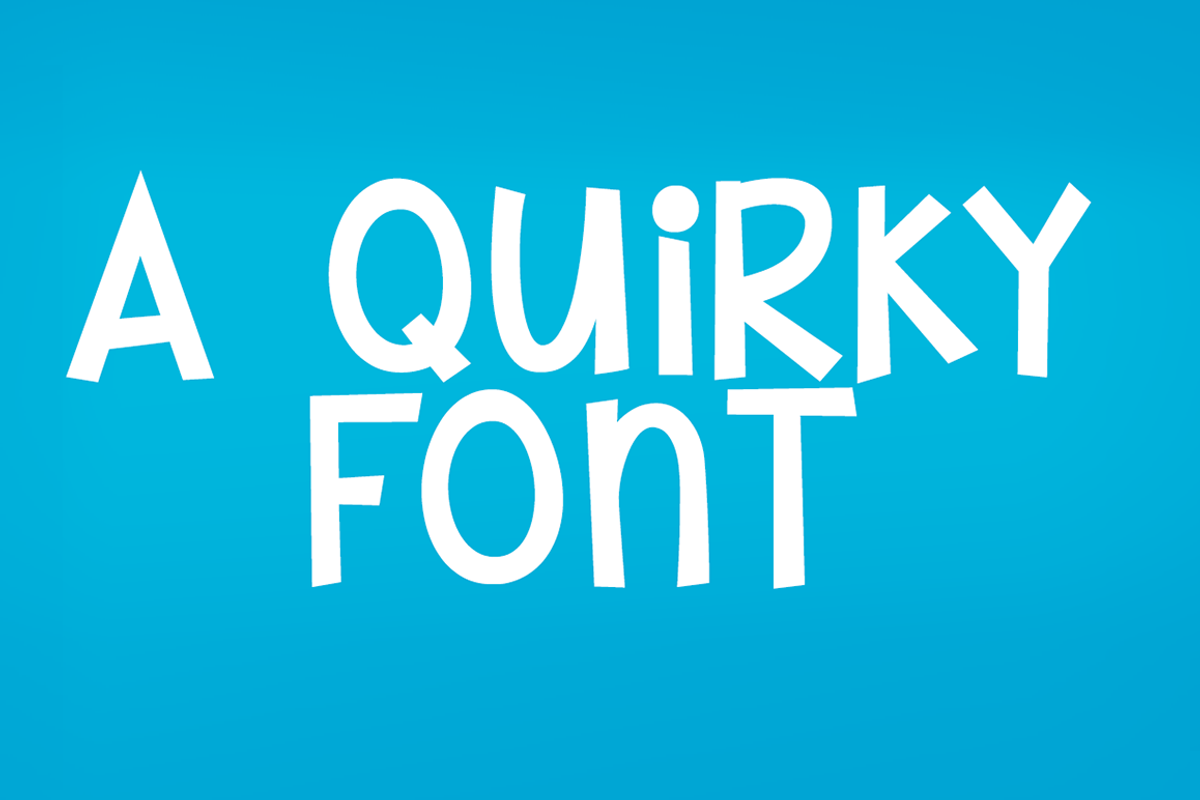
KG Shake it Off Fonts Free Download is a fun and energetic typeface set full of personality and movement. With its playful, hand-drawn style and bouncy baseline, this font is perfect for classroom materials, cheerful posters, kids’ projects, inspirational quotes, and upbeat branding. Whether you're designing for education or creating content that needs a friendly, animated feel, this font delivers charm and liveliness.
The font includes quirky letterforms that feel spontaneous yet structured, giving your designs a unique, handwritten look without sacrificing readability. It's a favorite among teachers, creatives, and anyone looking to add a bit of fun to their visuals.